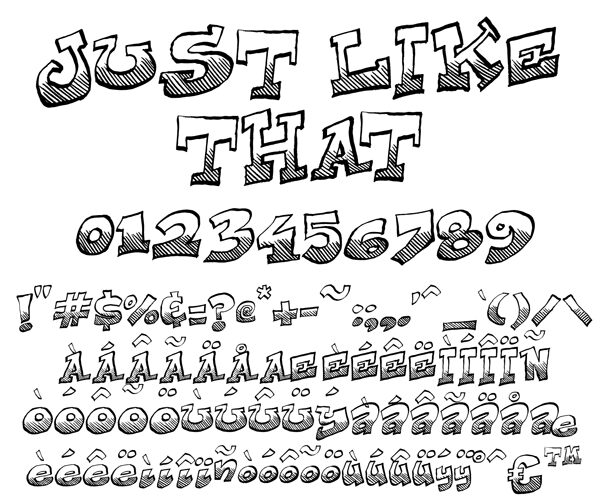
Just Like That by Imagex is a free cartoon display font with a lively graffiti edge. Its broad, uneven letters have loosely drawn outlines and blunt, exaggerated serifs. Diagonal hatching fills the lower portions, giving the lettering the look of a quick comic-book sketch.
Posters are its strongest setting, especially for comedy events, youth programs, or informal music nights. It feels immediate and cheerfully rough. The same hatched construction can become part of the artwork on snack packaging or illustrated children's book covers.